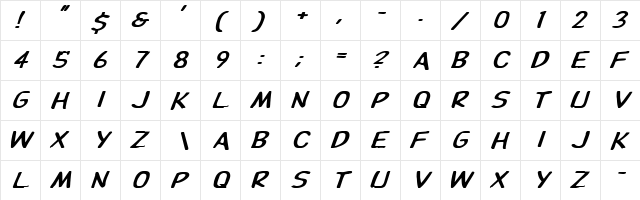
Pester 8 Bold Italic Font Preview
Design Context for Pester 8 Typeface
Pester 8 takes a measured approach to typography — its balanced proportions and neutral character make it a reliable workhorse for both digital and print work. The dynamic lean of this cut emphasises speed and emphasis in any layout. The heavy weight commands attention and anchors typographic hierarchies.
Pro Tip: Try Pester 8 for annotation and caption copy alongside an upright companion — the contrast in angle creates a dynamic but ordered typographic system.